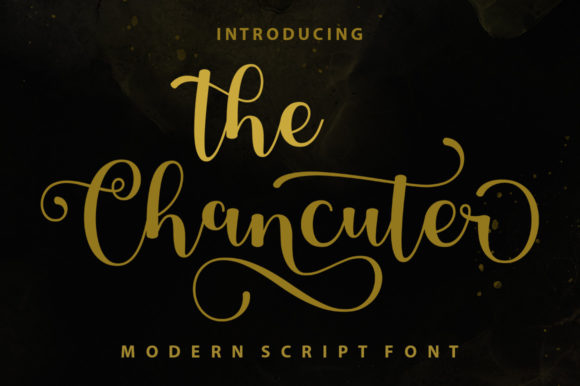
Behold, The Chancuter Font, a resplendent script font that dances across your designs with grace and refinement. Created by the artistic minds at Mourel Studio, this font is a true masterpiece, designed to infuse your projects with a touch of timeless elegance.
With its delicate strokes and flowing curves, The Chancuter Font effortlessly captures the essence of sophistication and charm. It's a font that whispers of classic beauty, yet maintains a modern and contemporary edge, making it the perfect choice for a wide range of design endeavors.
The Chancuter Font is not just a font; it's a gateway into a world of creative possibilities. It invites you to explore the realms of imagination and bring your designs to life with a new level of allure. Whether you're a seasoned designer or just starting your creative journey, this font will be your trusted companion, guiding you towards excellence with every stroke.
Think of the impact The Chancuter Font will have on your clothing line designs. Imagine the garments adorned with the exquisite curves and flourishes of this font, each piece telling a unique story of elegance and style. Your customers will be captivated by the intricate details and the luxurious feel that The Chancuter Font brings to your creations.
But The Chancuter Font's versatility extends far beyond clothing lines. It's equally at home in wedding invitations, branding projects, logos, social media graphics, and countless other applications. Its beauty knows no bounds, and it will elevate your designs to new heights of sophistication, regardless of the medium you choose.
The Chancuter Font is more than just a collection of letters; it's a treasure chest filled with creative potential. It's an invitation to embark on a journey of artistic expression, where your imagination is the only limit. Dive into the world of The Chancuter Font today and discover the boundless possibilities that await you.